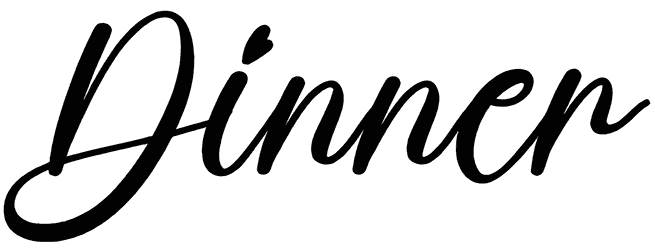
Dinner Font
The elegant and ravishing visual of this calligraphy font is going to make your unique design memorable. The letters of this thank you font are smooth and classic, and you can count on it for any topic. Use the Dinner font for your new invitation card design for a special, luxurious event and highlight your unique taste.